What is Monospace Font? Here are Some Well-Known Monospaced Typefaces
What is Monospace Font?
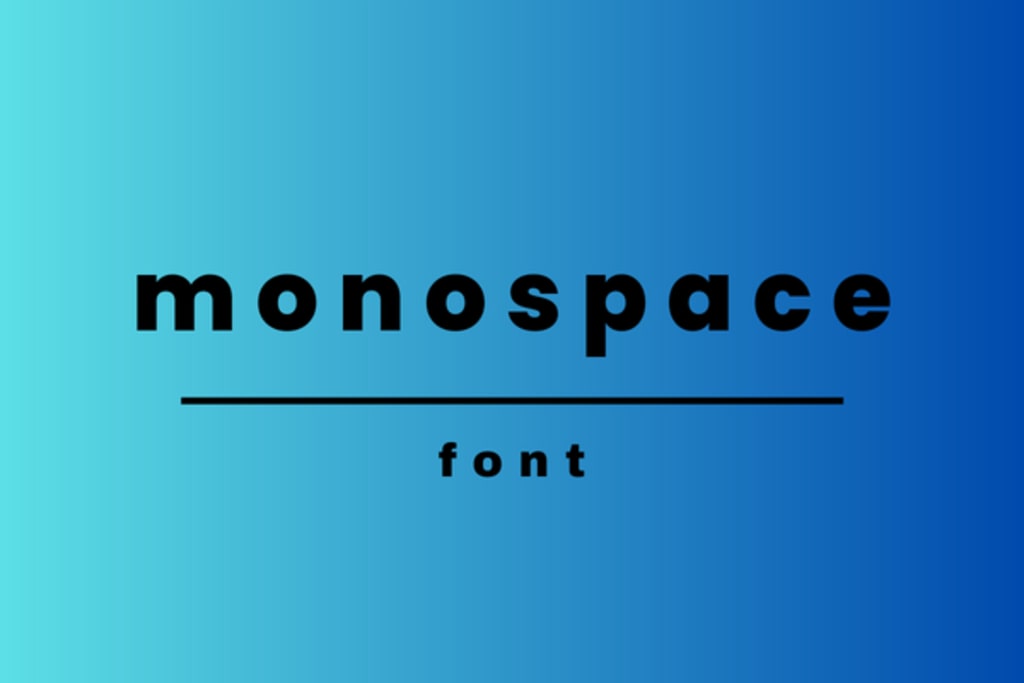
Talking about typography cannot be separated from fonts. There are many types of fonts used to beautify typography. Monospace is a well-known typeface and has many uses. Then, what is monospace? The distinctive feature of this font is that each letter has the same horizontal space.
What is a Monospaced Font?
The meaning of Monospaced font is a type of writing that looks like a typewriter. This type of writing has the same space for each character, so it’s a little difficult to read. Monospaced fonts will have the same amount of horizontal space and width characters.
Initially, this typeface was more often used on old-school computers, because at that time the graphics capabilities on computers were not as sophisticated as they are today. In addition, the Monospaced design was also created specifically for standard typewriters.
Commonly Used Famous Monospace Fonts
To improve your deeper knowledge of typography fonts, we recommend you check some of the Monospace font types that are often used as follows:
1. League Mono
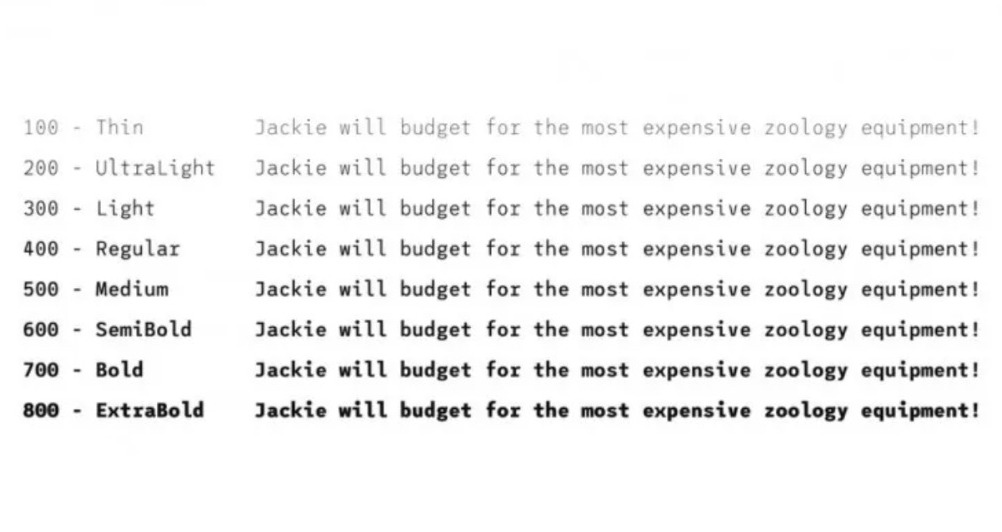
A typeface that is part of the monospace font family is League Mono. Even though the design character looks like writing on a typewriter, it has a clear level of legibility.
The League Mono font provides 8 options, starting from thin, ultralight, light, regular, medium, semi-bold, bold, and extra bold. These options present the same letter design, but only the thickness is different.
The easy-on-eyes design and good legibility allow you to use the font for long texts. Besides, the space for each letter looks neat and not too tight.
2. Courier
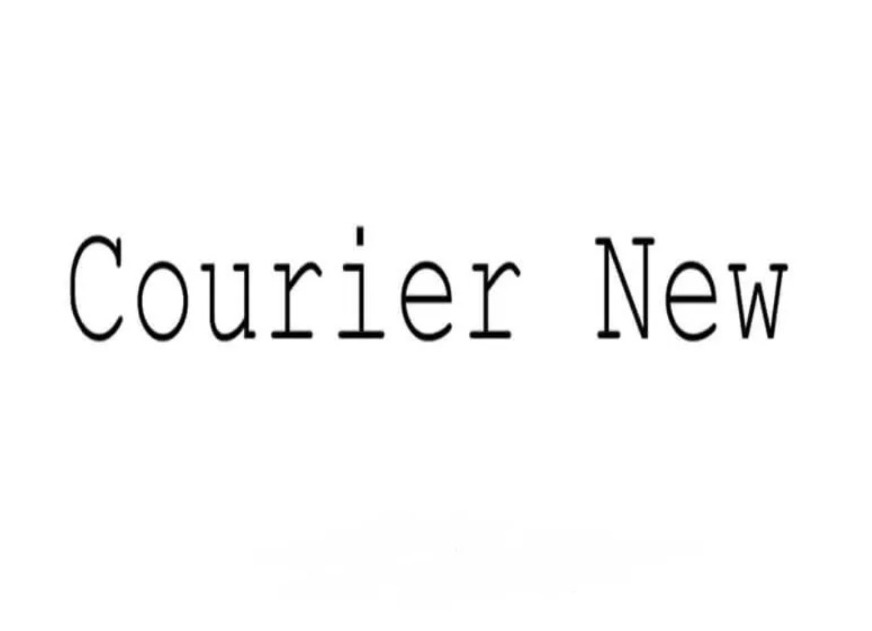
What type of monospace font is suitable for short text? It is a Courier font. Then, why is that? It is because the display of the Courier font character is similar to the typewriter character. If you use this font for long text, then it will reduce the readability of the text.
So, to have good legibility for your design, it’s best to use Courier font for short text only. Using the Courier font properly will bring out a strong vintage feel. It will certainly give artistic and aesthetic characteristics to your work.
3. ElroNet Monospace
What is the monospace ElroNet typeface? Have you heard that before? For those of you who are still not familiar with this type of font, it is a typeface with characters like a typewriter but comes with a more modern display.
Choosing this font will make your design look fresher and give it an interesting artistic touch. Each letter’s medium-thickness design also gives a sweet and friendly vibe. Although each end of the letter does not use rounded corners, it does not look stiff.
The Elronet font has uppercase, lowercase, numbers, symbols, and punctuation. These options certainly provide convenience to its users. In addition, the ElroNet font doesn’t look clumpy either, because each letter has a wide enough space. As a result, you won’t have any problems with readability.
4. Inconsolata
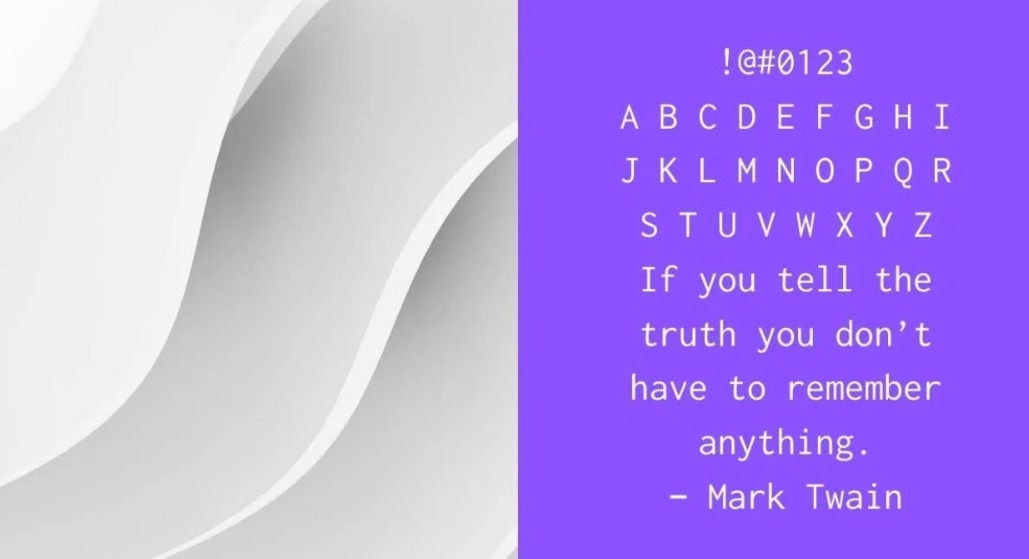
The next font that belongs to the Monospace font family is Inconsolata. The use of this font is for code listings and the like. Thus, this font is used on the screen for programming fonts. For high-resolution rendering needs, the Inconsolata font is not perfect yet.
Considering that this font is more widely used in programming, the display of writing is also not designed humanely. Even so, the Inconsolata font still has fairly clear legibility.
5. Apercu Mono
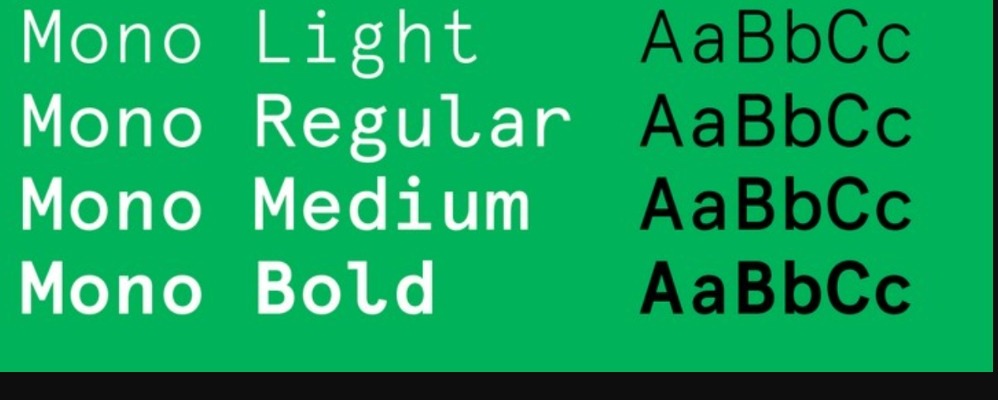
The last well-known font type from Monospace is the Apercu Mono font, which comes with a fresher vibe. You can use Apercu Mono for digital media text. Its display is slightly different from the other Monospace families, making this font have an eccentric side.
Each Apercu Mono letter design has corners that are not rounded but still give a friendly and unique vibe. In addition, the long text in the Apercu Mono font is also pleasing to the eye and has well-read legibility.
Have You Understood What is Monospace?
Which fonts are monospaced according to your needs? Some examples of the famous Monospace font types above have different uses. The design of each letter will affect the display you want to present. To produce artful and readable designs, choose wisely.